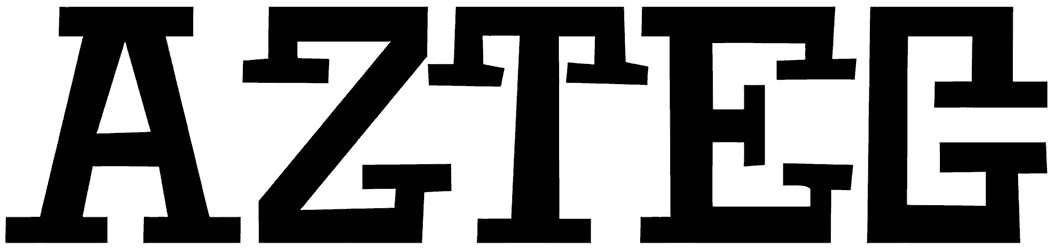
Aztec Font
Your design will reflect a unique and catchy mood with this retro font. Aztec consists of bold and geometric letters and can bring a foreign vibe to your layout. There is no support for lowercase letters, but this Aztec font can be fairly good for your novel designs, from movie posters to illustrations.